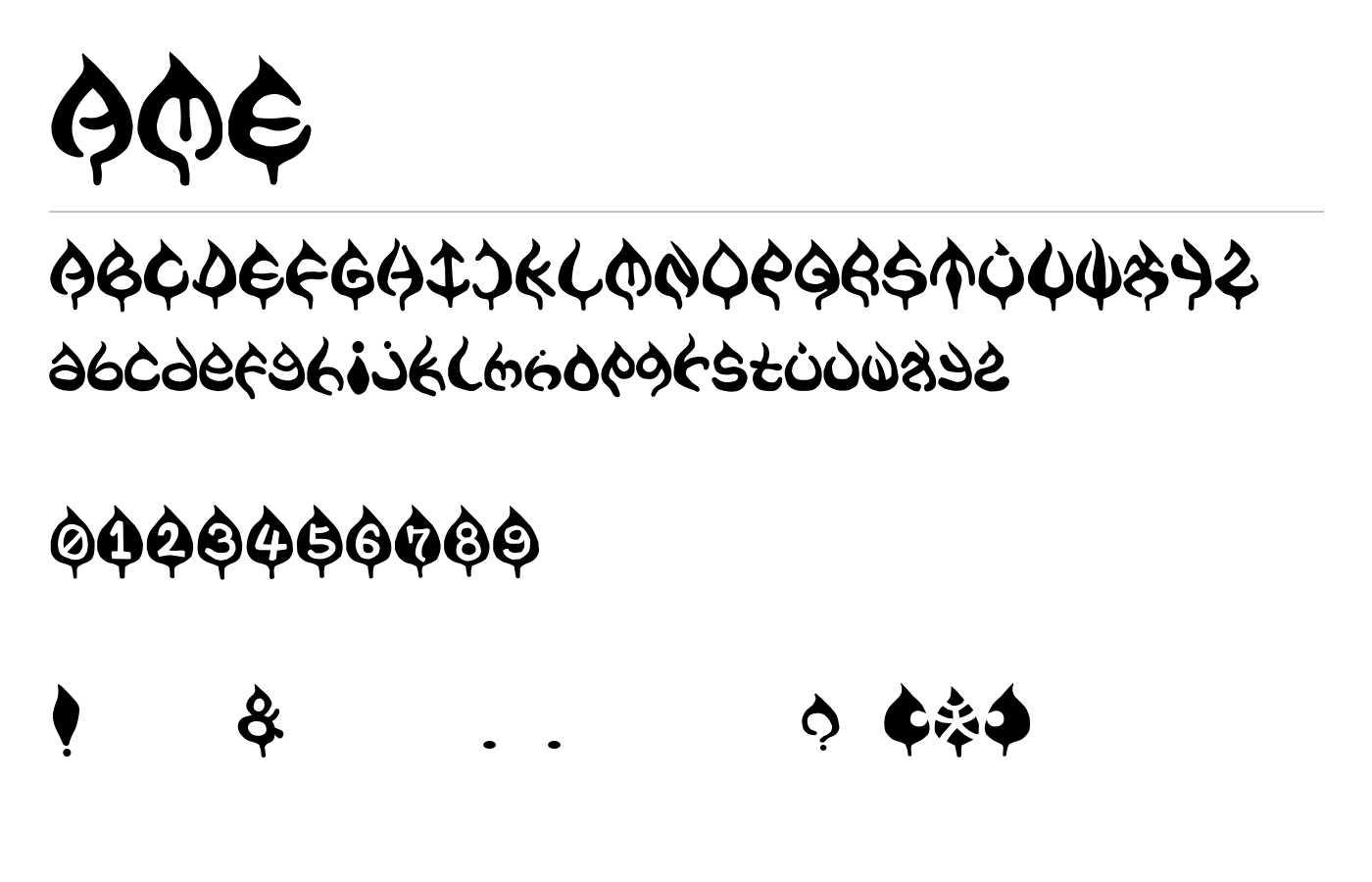
AME Font is a highly decorative display typeface featuring bold, flame-inspired shapes with fluid, dripping strokes that create a dramatic, otherworldly effect. Its unique, ornamental letterforms and symbols make it ideal for striking logos, posters, or designs seeking a dark, mystical, or fantasy vibe. This font shines best in creative, bold applications rather than body text due to its intense and intricate style.
AME- Font